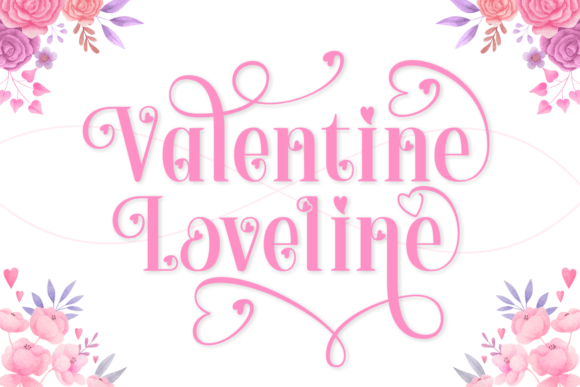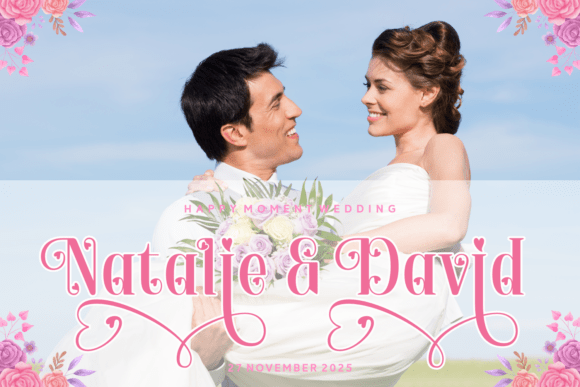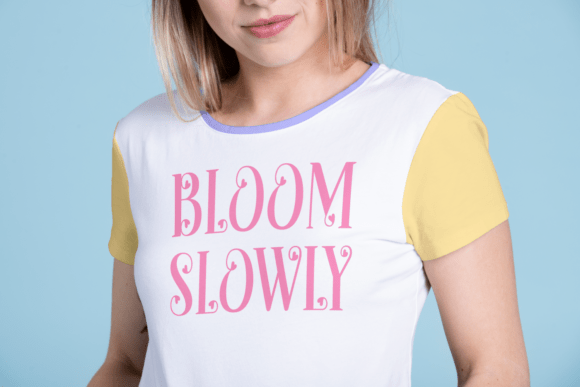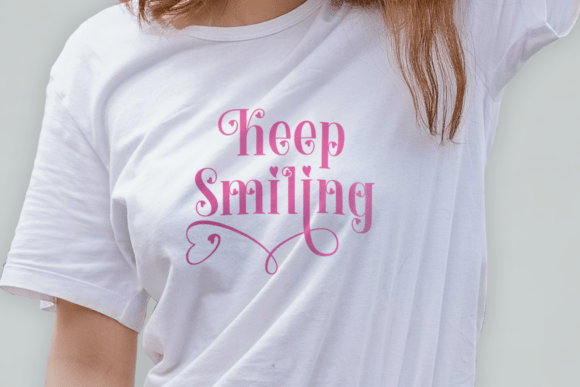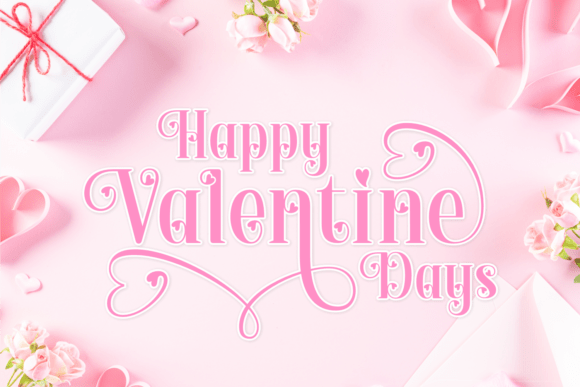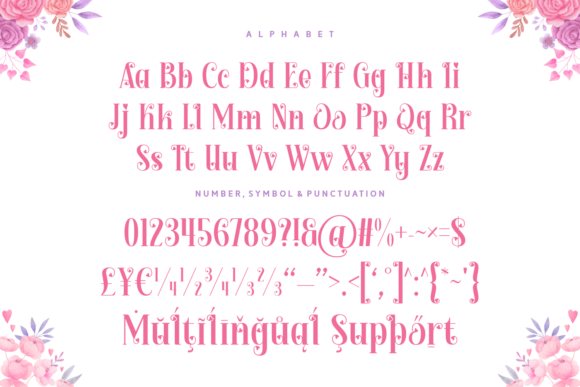
Valentine Loveline Font
Unveiling “Valentine Loveline”, a Serif font that’s a testament to romance, perfect for all your Valentine’s Day creations. Distinctly designed with authenticity and a smooth, clean allure, it infuses an instant sense of love and warmth. Highly adaptable, this fresh and unique font seamlessly fits into a variety of uses, from hearts-filled greeting cards to powerful quotes that touch the heart. Ideal for designing brand elements, apparel, and product packaging, its multinational and accented features make a striking appeal in Eastern European aesthetics. Light up the pages of books and magazines with its mesmerizing strokes or immerse your audience in its charming elegance through posters and covers. Providing a personal touch to invitations, labels, and more, Valentine Loveline is your go-to Serif font for every expression of love and beyond.